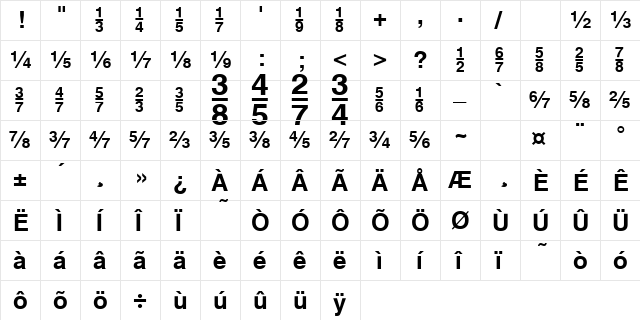
HeFractions Bold Font Preview
HeFractions Bold
Design Context for HeFractions Typeface
HeFractions is a composed and adaptable typeface that performs quietly and consistently across a wide range of design contexts. Its bold stroke weight gives it real presence on the page.
Pro Tip: Pair HeFractions with a font of contrasting weight or personality to build a more expressive typographic hierarchy.